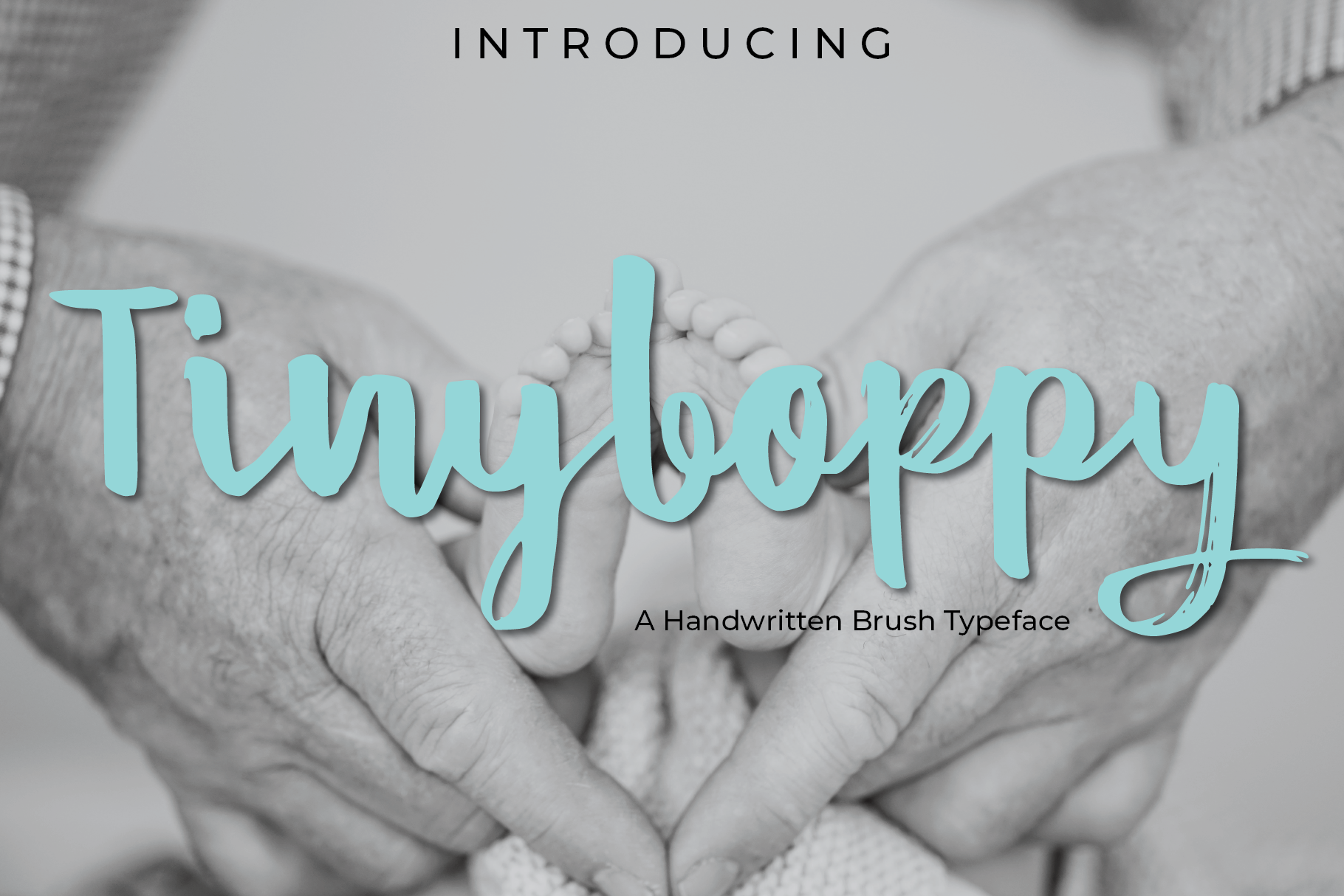
Tinyboppy Handwritten Brush Typeface
I would like to introduce Tinyboppy a handwritten brush typeface
Tinyboppy a handwritten brush typeface created from a real brush pen. Giving off a fun vibe, informal and human handwriting look. It can be used as a cute display quotes, kids related, blog, branding, packaging, wedding invitation project, etc.